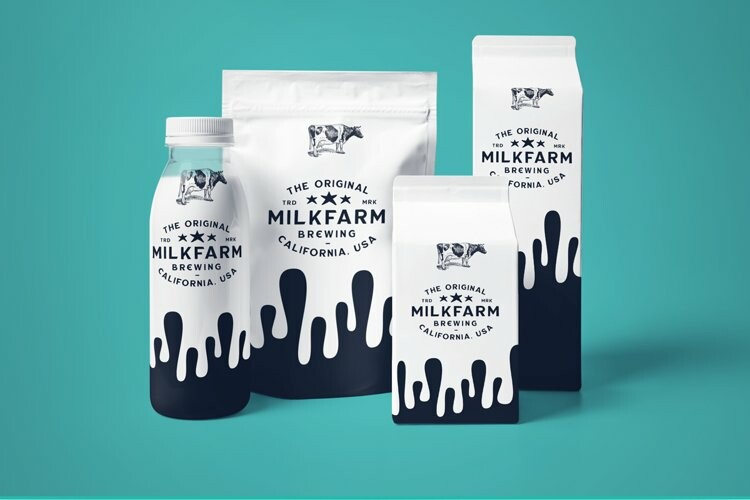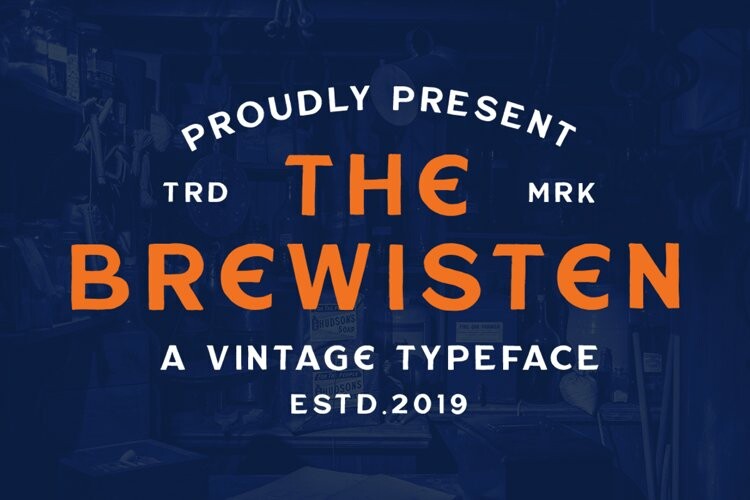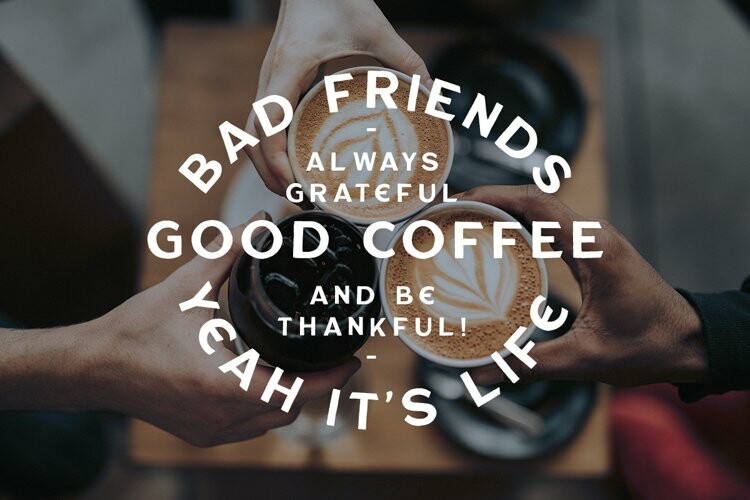
Brewisten Font
Brewisten FontBREWISTEN SANS is a family sans serif font designed with carefully handcrafted. Also suitable for branding, T-shirt, Wedding Invitation, Classic Design, Logotype, and any project. With two style make you easier to design everythings.